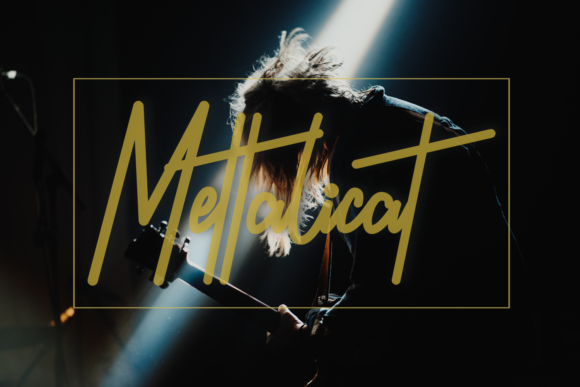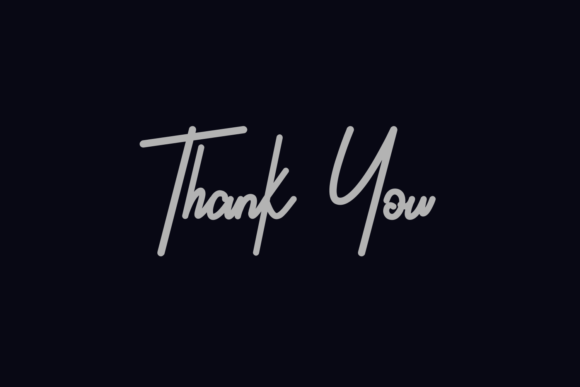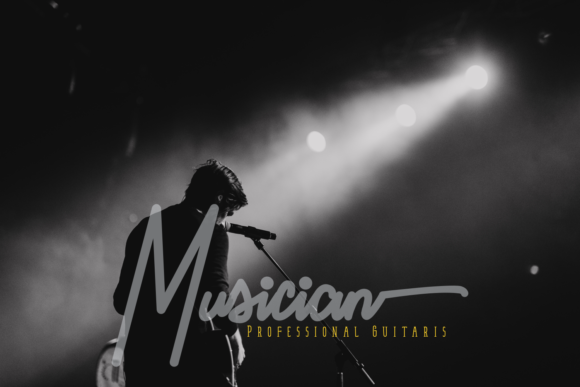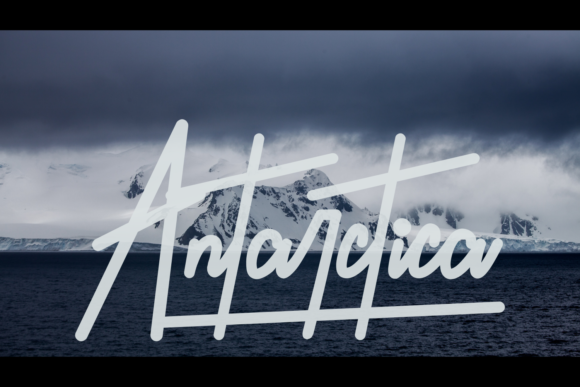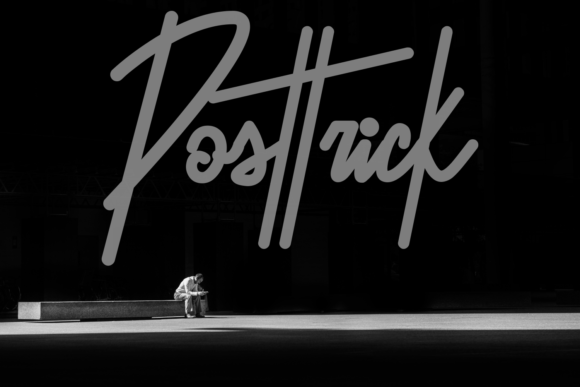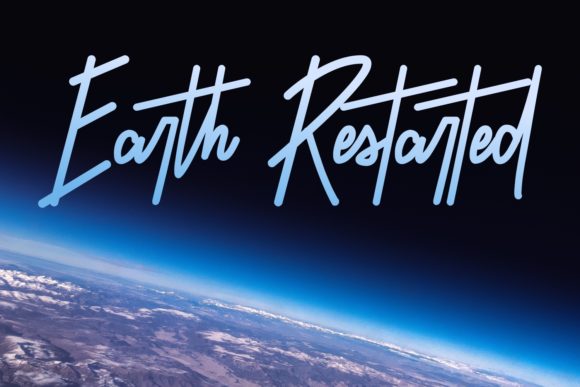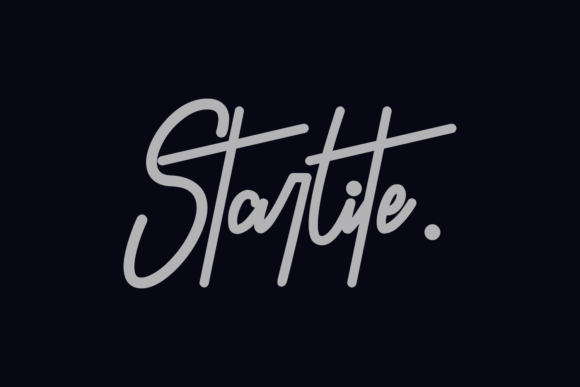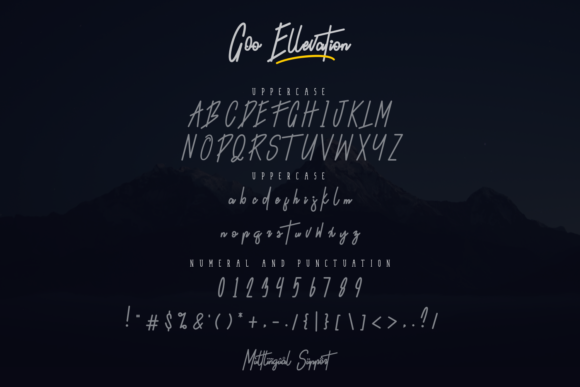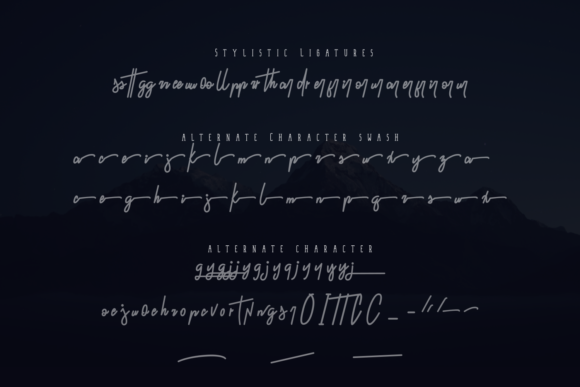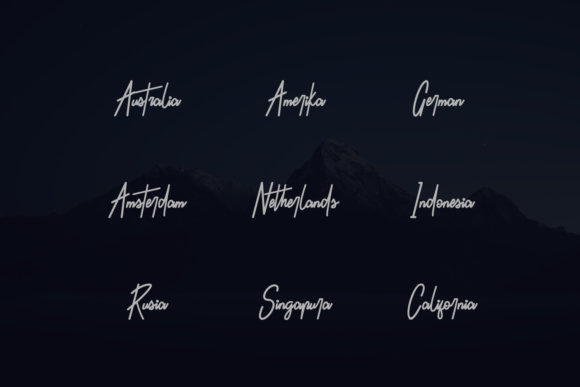
Goo Ellevation Font
About Goo Ellevation Font
Goo Ellevation is an elegant handwritten font, that features a very delicate and classy look. Not too thin and not too thick, balanced and varied, Goo Ellevation was designed to enhance the beauty of your projects.